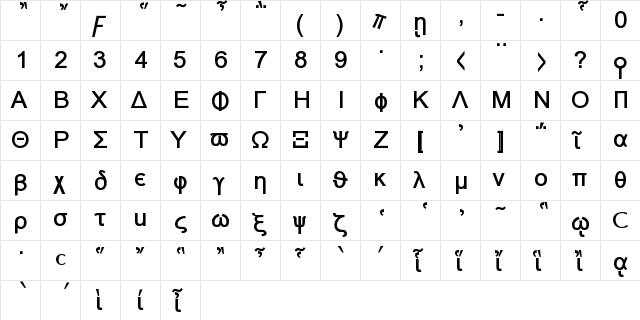
Naxos Bold
Design Context for Naxos Typeface
Naxos takes a measured approach to typography — its balanced proportions and neutral character make it a reliable workhorse for both digital and print work. The heavy weight commands attention and anchors typographic hierarchies.